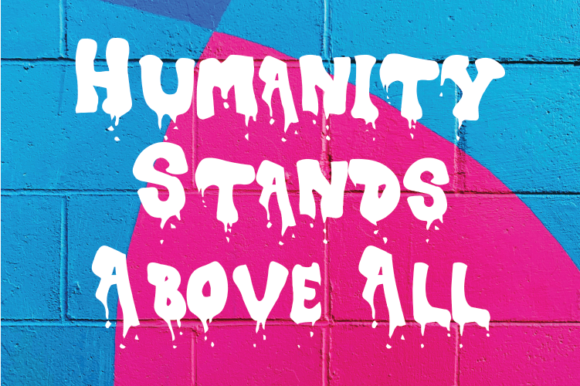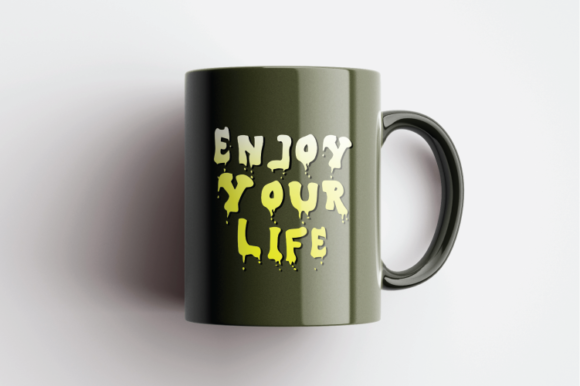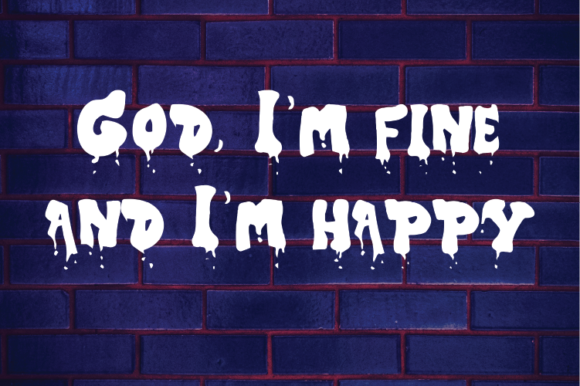
Introduction to Doyotama Font
Doyotama is a spooky and bold display font.
Add it to your Halloween crafts, horror movie posters, t-shirts and anything else that requires a spectacular look .
Doyotama Font offers exceptional quality and versatility, making it a valuable addition to your design toolkit. Whether you’re creating for personal projects or commercial use, Doyotama Font delivers professional results.